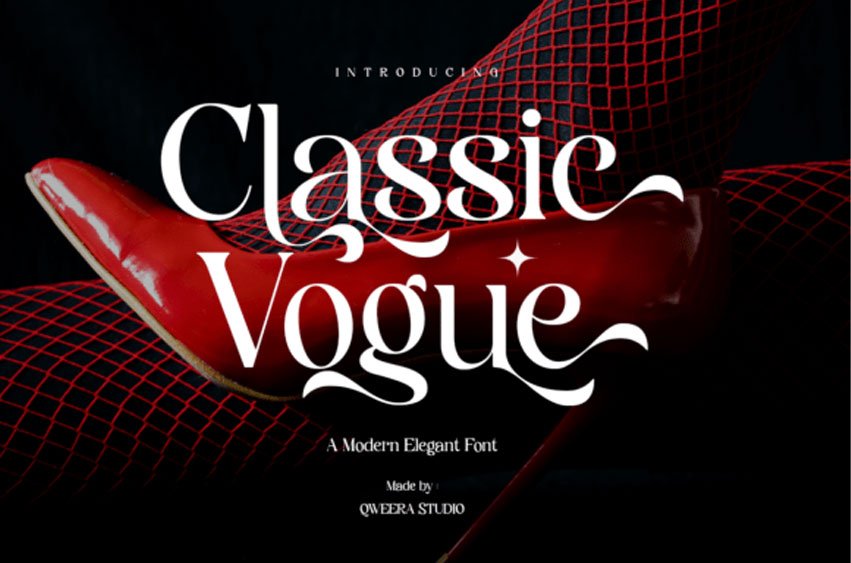
Classic Vogue Font is a high-contrast serif typeface that blends modern sophistication with dramatic flair.
Its sharp serifs, sculpted curves, and elegant swashes give it a distinctive editorial presence—ideal for luxury branding, magazine headlines, fashion lookbooks, and high-impact visual identities.
Every detail is designed to command attention, from its sweeping alternates to its refined proportions. The font balances boldness and grace, offering just enough ornamentation to feel elevated without losing clarity or structure.
Classic Vogue is perfect for designers working on upscale campaigns, beauty or fashion branding, and any project where strong visual storytelling is key. It supports multiple languages and comes in standard professional formats for seamless use across print and digital media.
Ideal for:
High-end fashion branding
Premium cosmetic packaging
Luxury hotel identity systems
Elegant magazine layouts
Sophisticated wedding suites